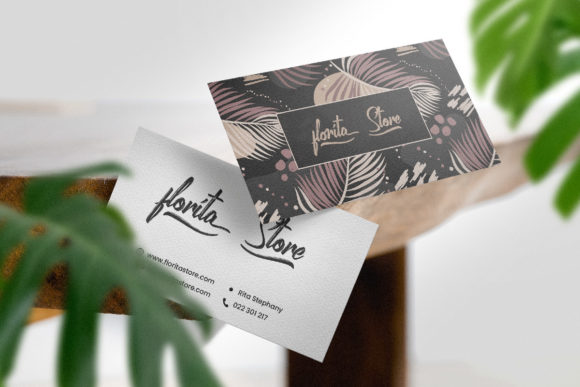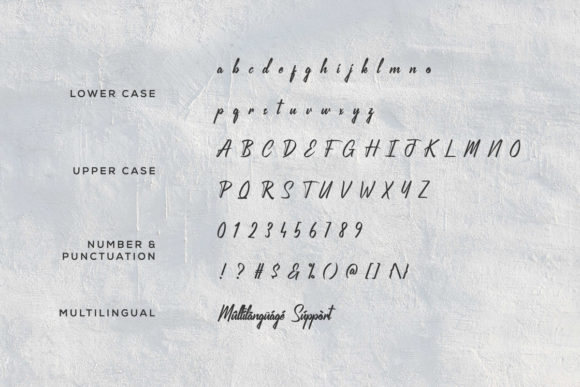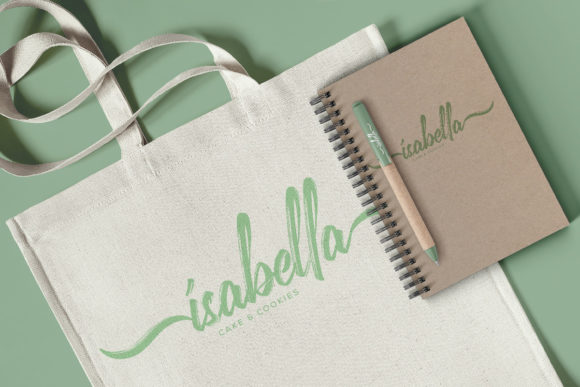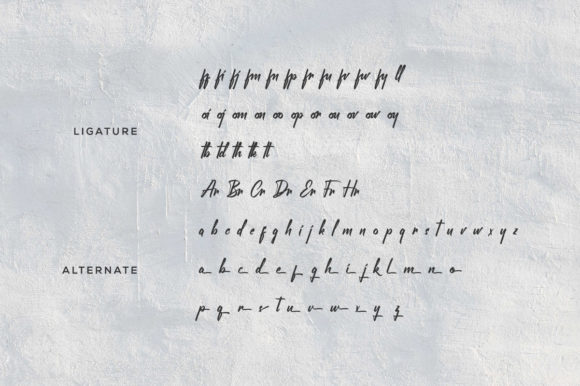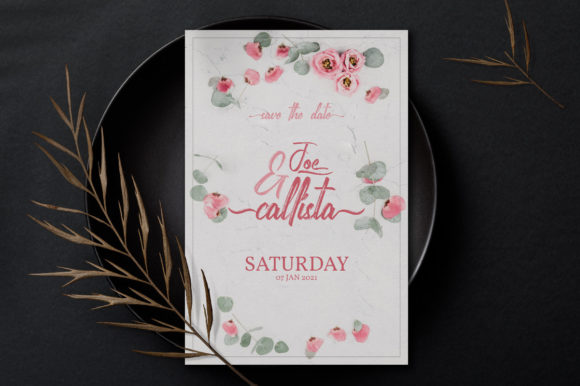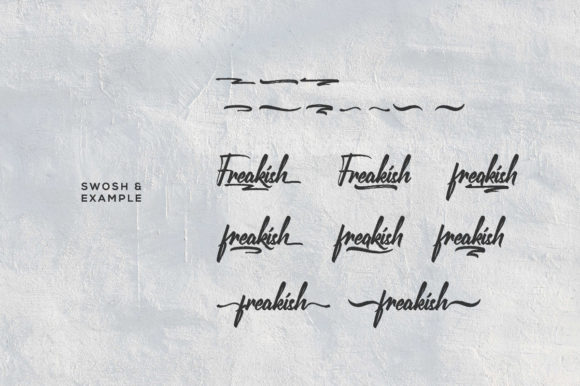
Freakish Font: Elevate Your Designs with a Cool, Brushed, and Cursive Handwritten Style
Are you tired of using the same old fonts in your designs? Look no further! Freakish Font is here to take your creative projects to the next level. This stunning, brushed, and cursive handwritten font is perfect for designers and crafters who want to add a touch of elegance and sophistication to their work.
What Makes Freakish Font So Special?
Freakish Font is a unique and versatile font that can be used on a wide range of design ideas. Its gentle, cursive strokes and brushed texture give it a distinctive look that’s both modern and vintage. Whether you’re working on a logo, a poster, a website, or a digital product, Freakish Font is sure to make your design stand out from the crowd.
One of the best things about Freakish Font is that it’s PUA (Private Use Area) encoded. This means that you can access all of the glyphs and swashes with ease, giving you even more creative possibilities. With PUA encoding, you can use the font’s built-in ligatures, stylistic alternates, and swashes to add a personal touch to your designs.
Freakish Font is a dream come true for designers and crafters who want to add a personal touch to their work. Whether you’re creating digital products, such as printable art, planners, or SVG files, or working on physical projects, like handmade cards, scrapbook pages, or journal entries, Freakish Font is the perfect choice.
Tips for Using Freakish Font in Your Designs
Here are some tips for getting the most out of Freakish Font:
- Use it as a headline font to add a touch of elegance to your designs.
- Pair it with a sans-serif font for a modern and stylish look.
- Experiment with different colors and textures to give your designs a unique feel.
- Take advantage of the font’s PUA encoding to add custom ligatures and swashes.
Why Choose Freakish Font?
So, why choose Freakish Font over other fonts? Here are just a few reasons:
- Unique and distinctive look that’s both modern and vintage.
- PUA encoded for easy access to glyphs and swashes.
- Perfect for a wide range of design ideas, from logos to digital products.
- Easy to use and customize, even for beginners.